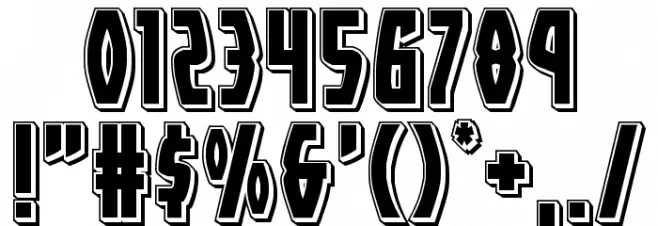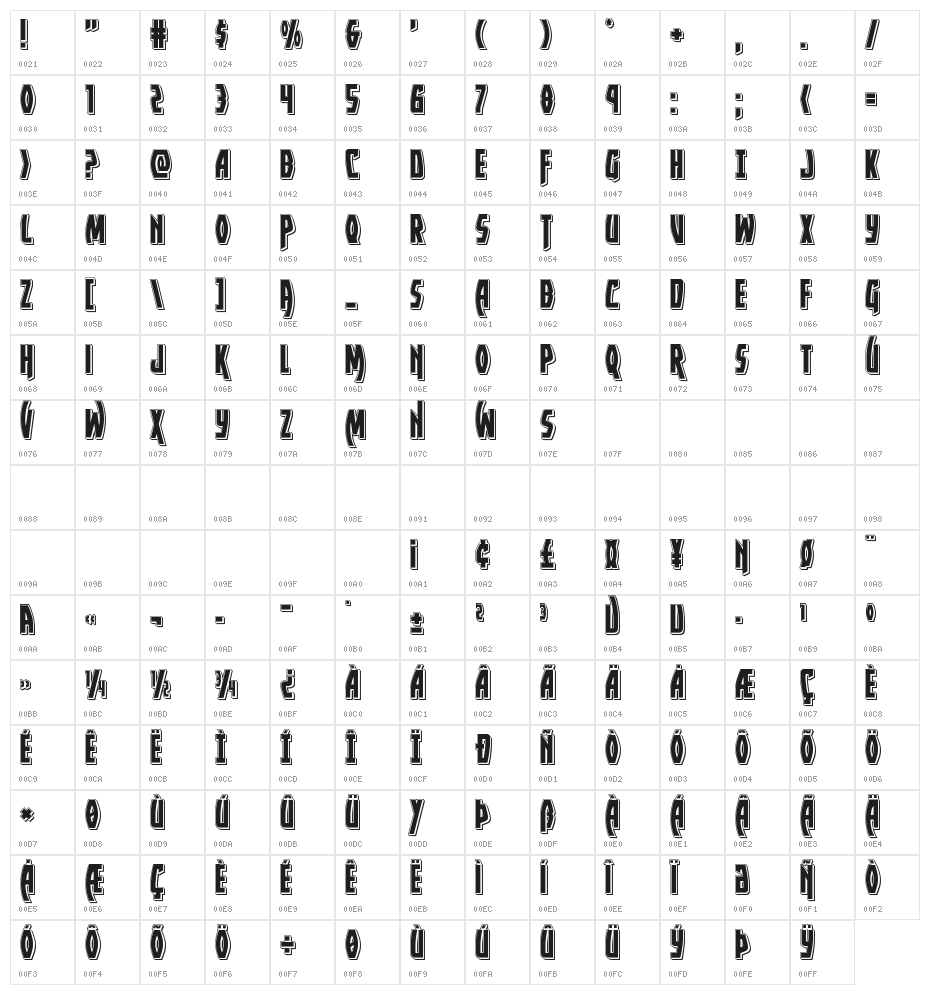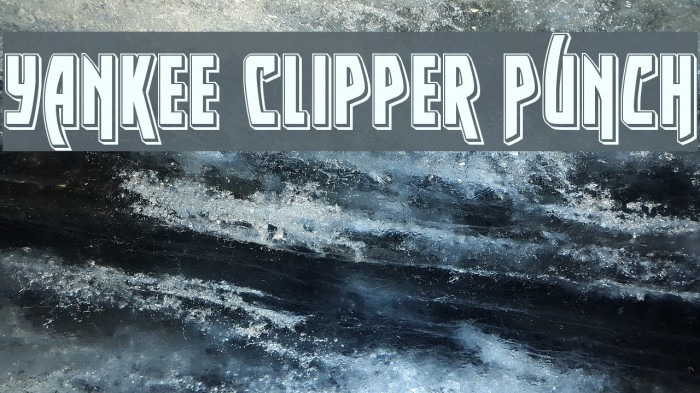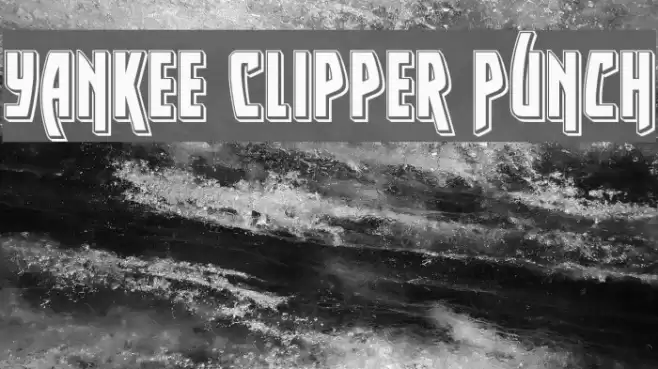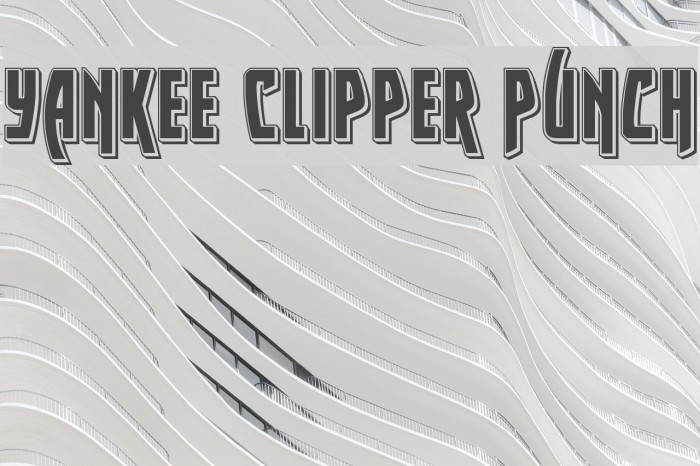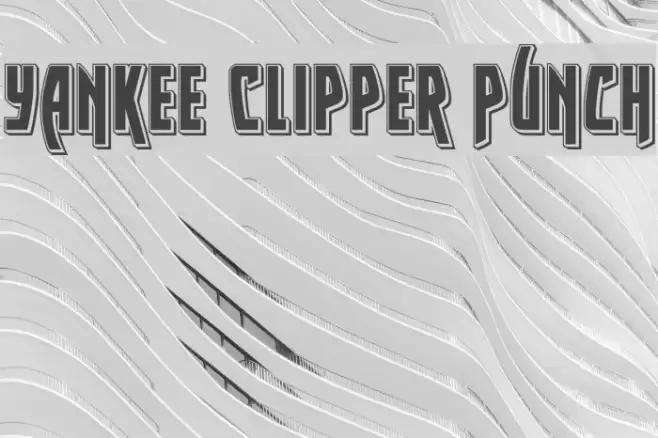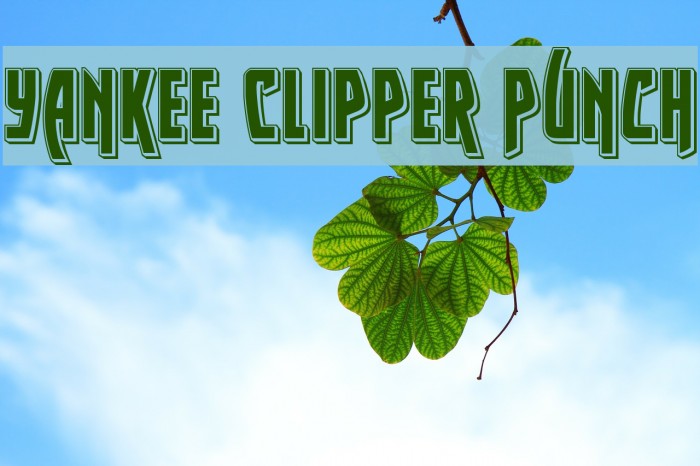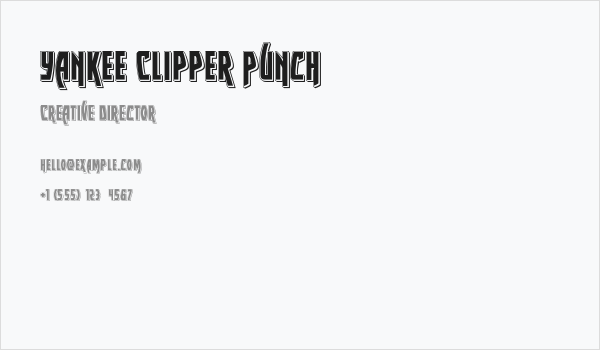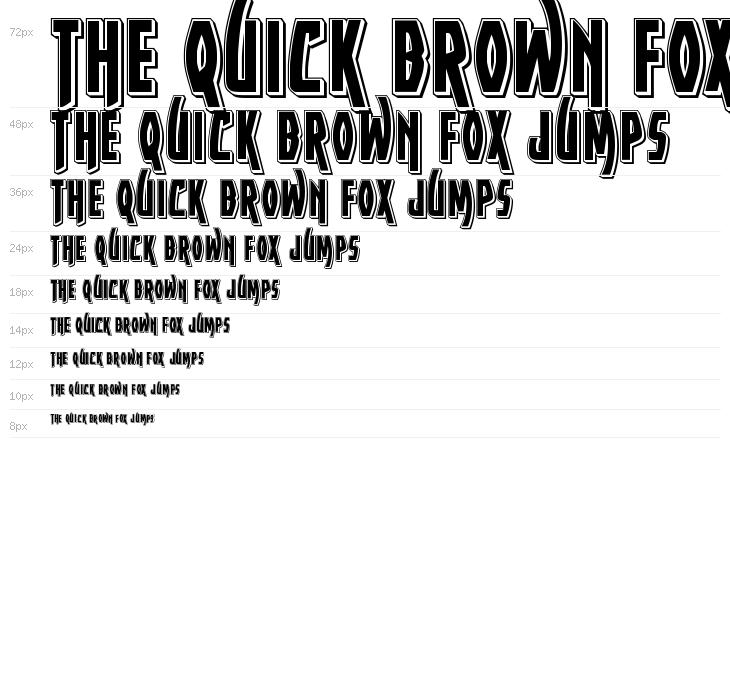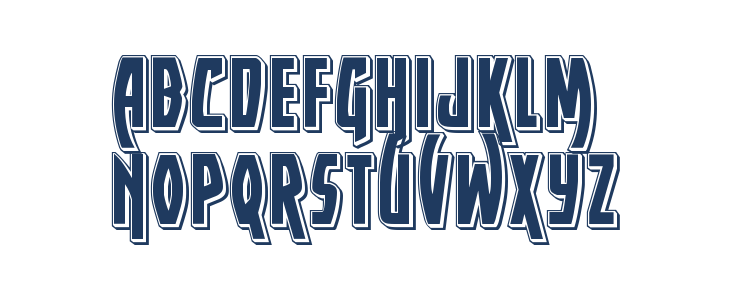
Yankee Clipper Punch Font
Yankee Clipper Punch Description
This font features bold, blocky characters with a strong, impactful presence. Each letter is outlined with a thick border, enhancing its visibility and making it stand out. The design incorporates sharp angles and a slightly condensed form, giving it a modern and edgy look. The uppercase and lowercase letters maintain a consistent style, while the numbers and special characters complement the overall aesthetic. This font is ideal for projects that require a bold statement, such as posters, headlines, or branding materials.
Proposed ProjectsIdeal for posters, headlines, branding, and any design needing a strong visual impact.